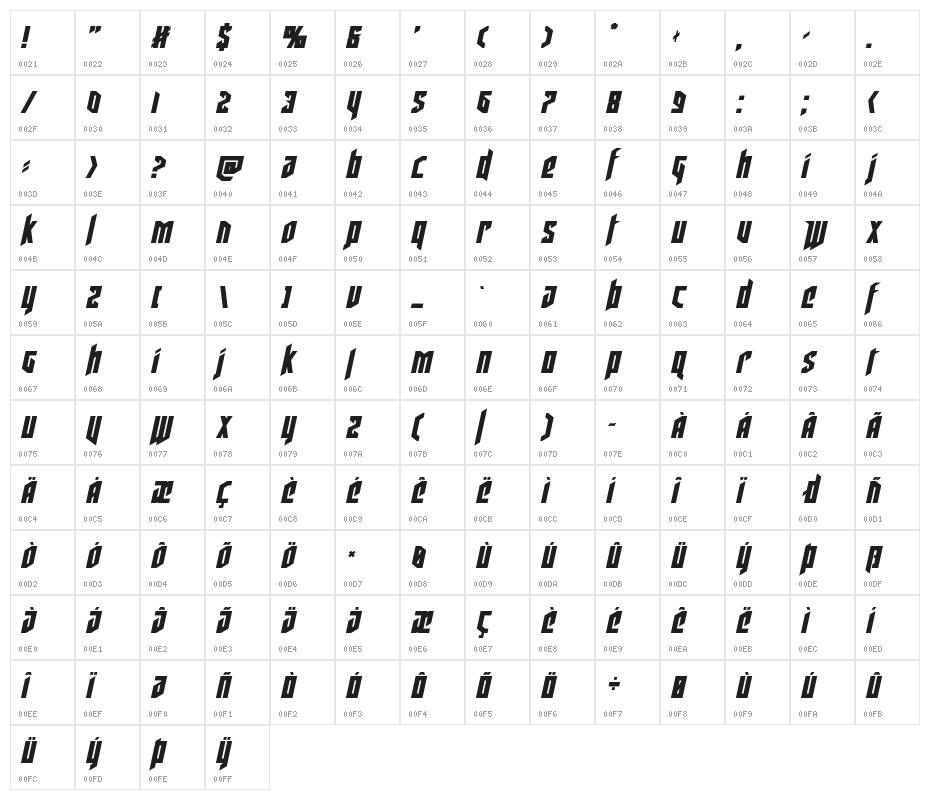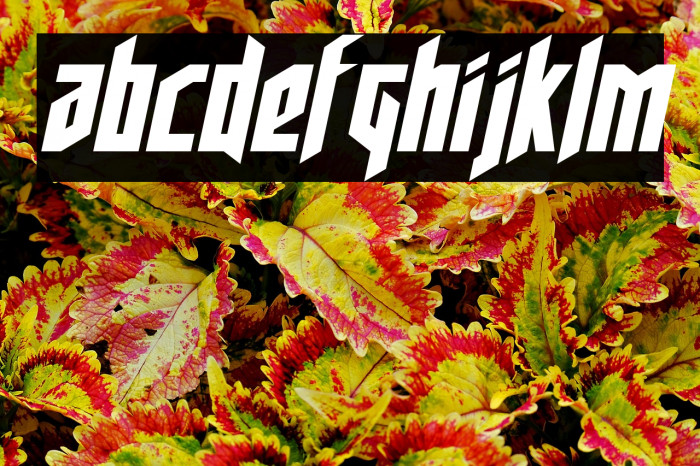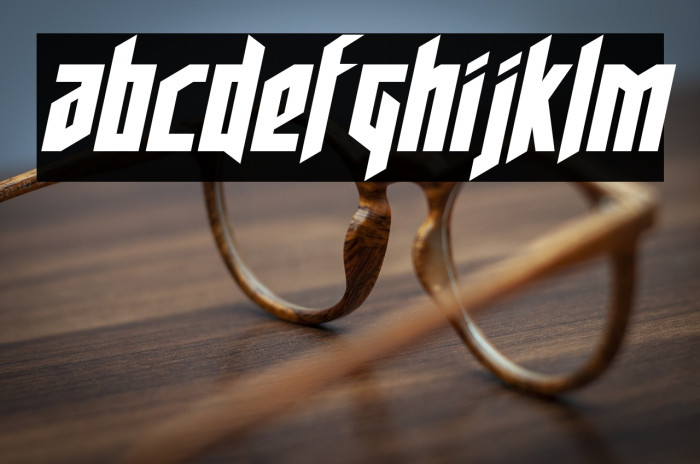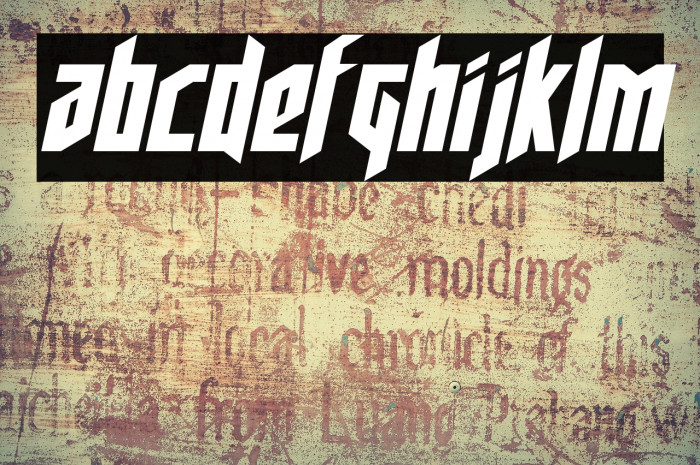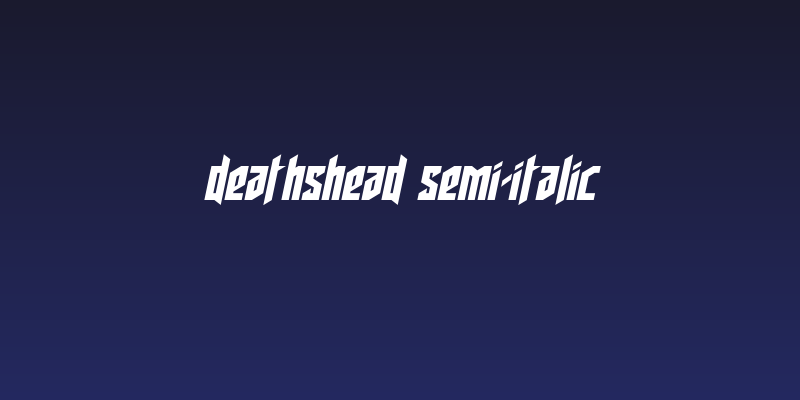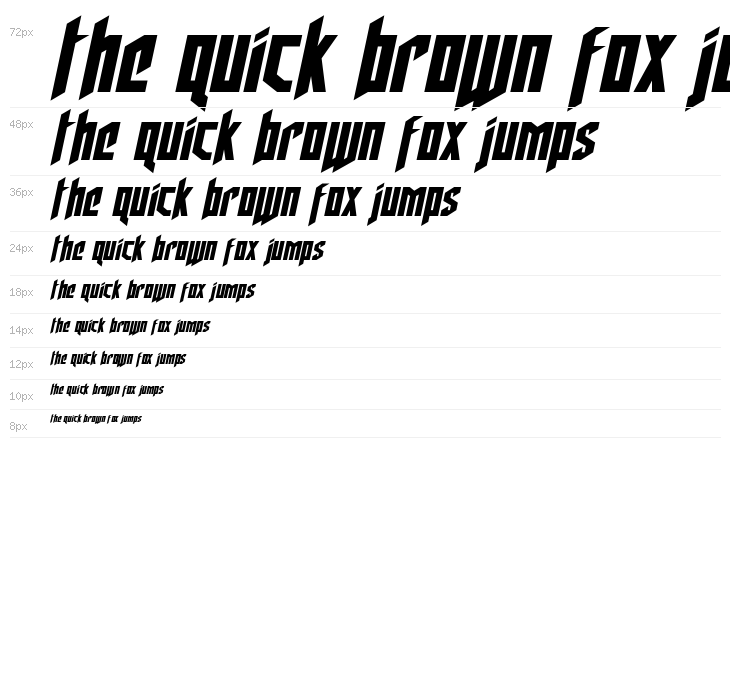
Deathshead Semi-Italic Font
Deathshead Semi-Italic Description
This font features a bold and angular design with a strong geometric influence. The characters are sharply defined with a distinct slant, giving it a dynamic and aggressive appearance. The uppercase and lowercase letters maintain a consistent style, with sharp edges and a futuristic feel. The numbers and special characters follow the same design principles, ensuring uniformity across the typeface. This font's unique style makes it stand out, ideal for projects that require a bold and impactful visual statement.